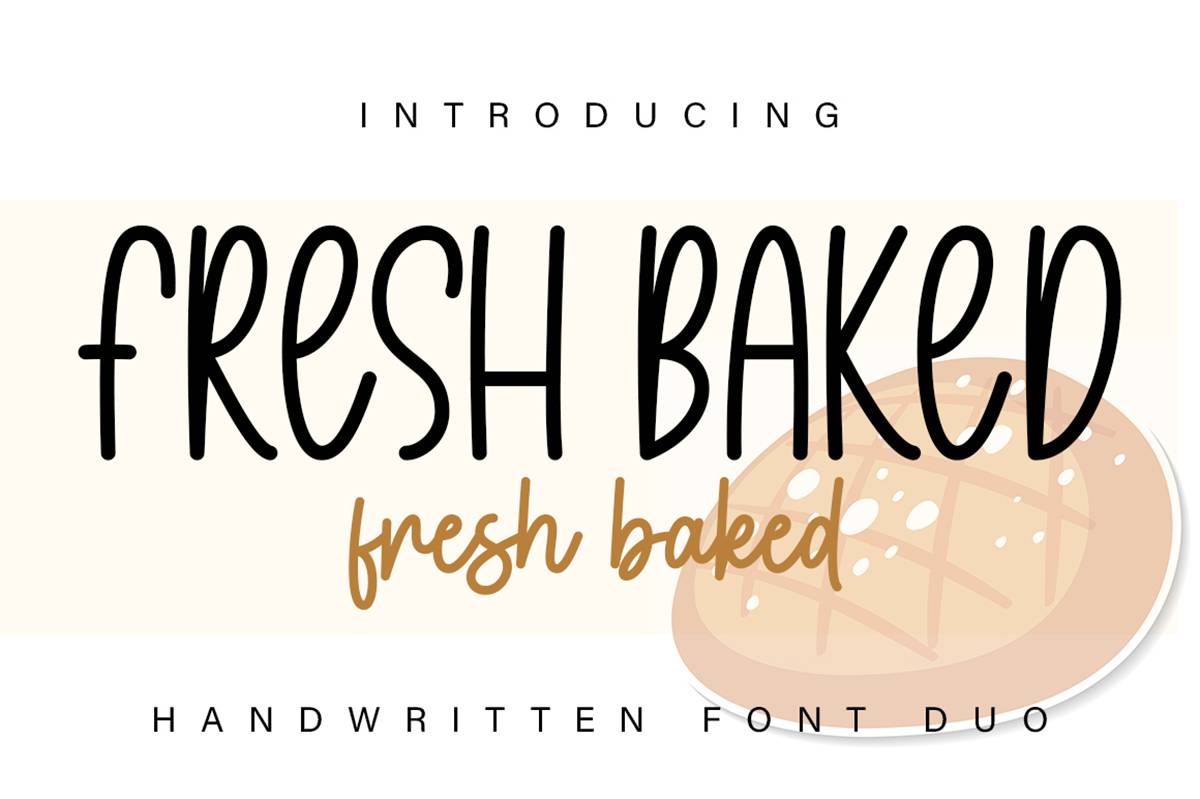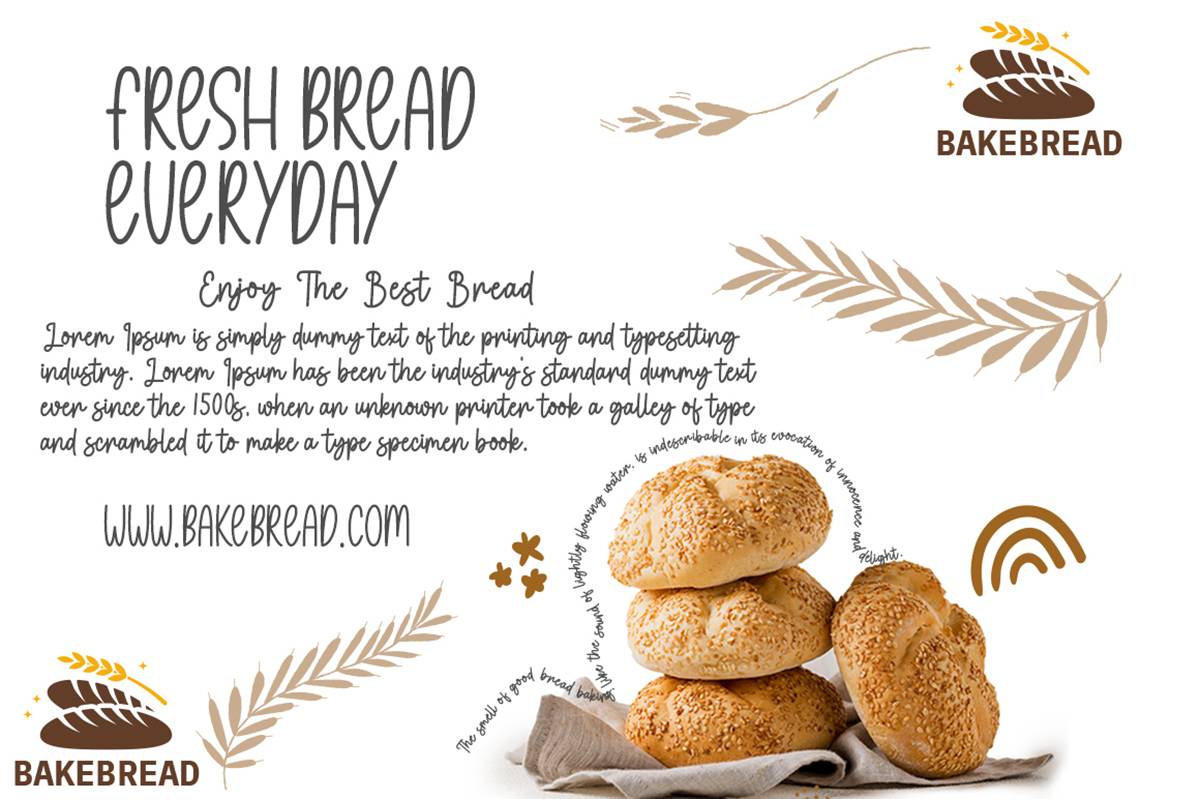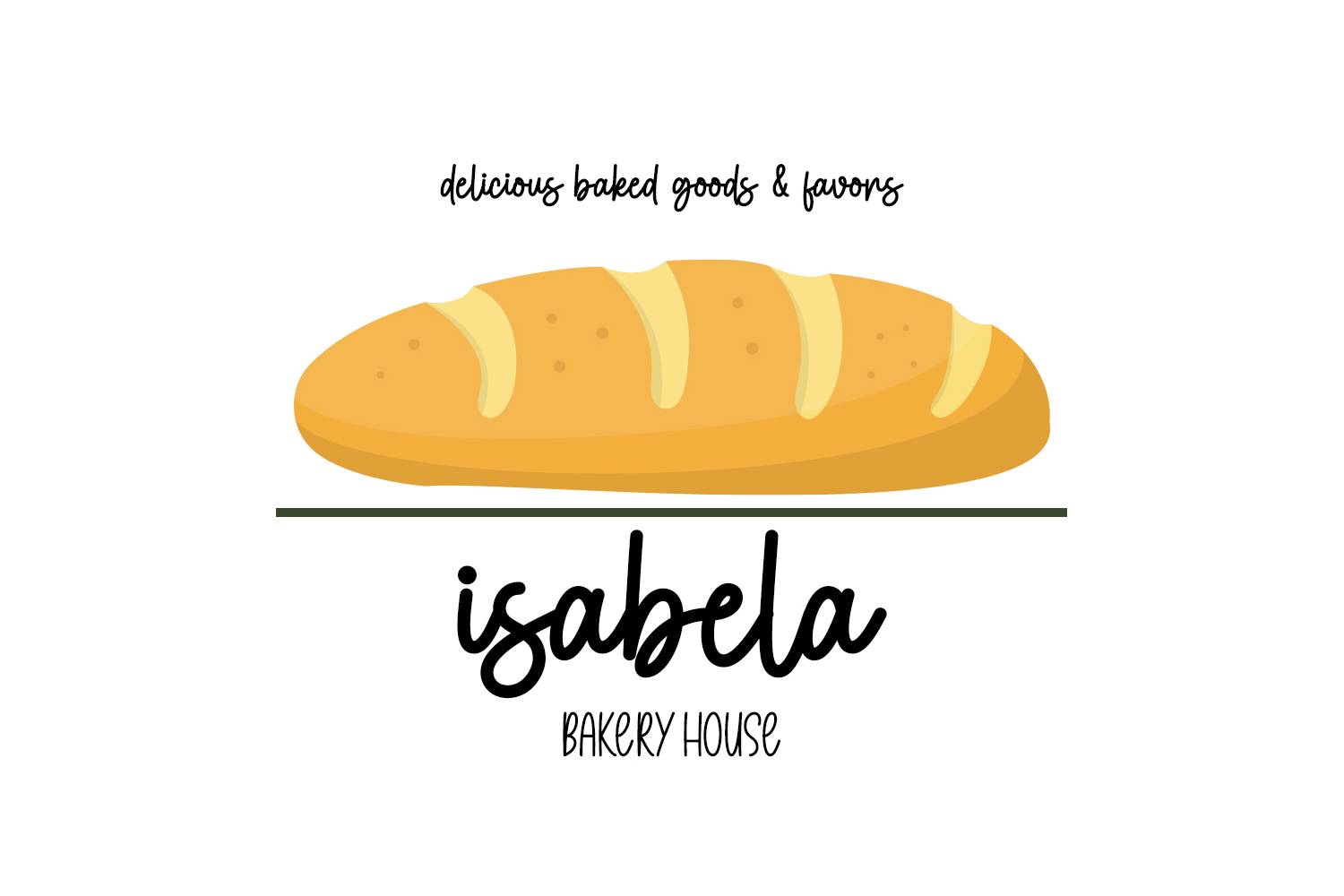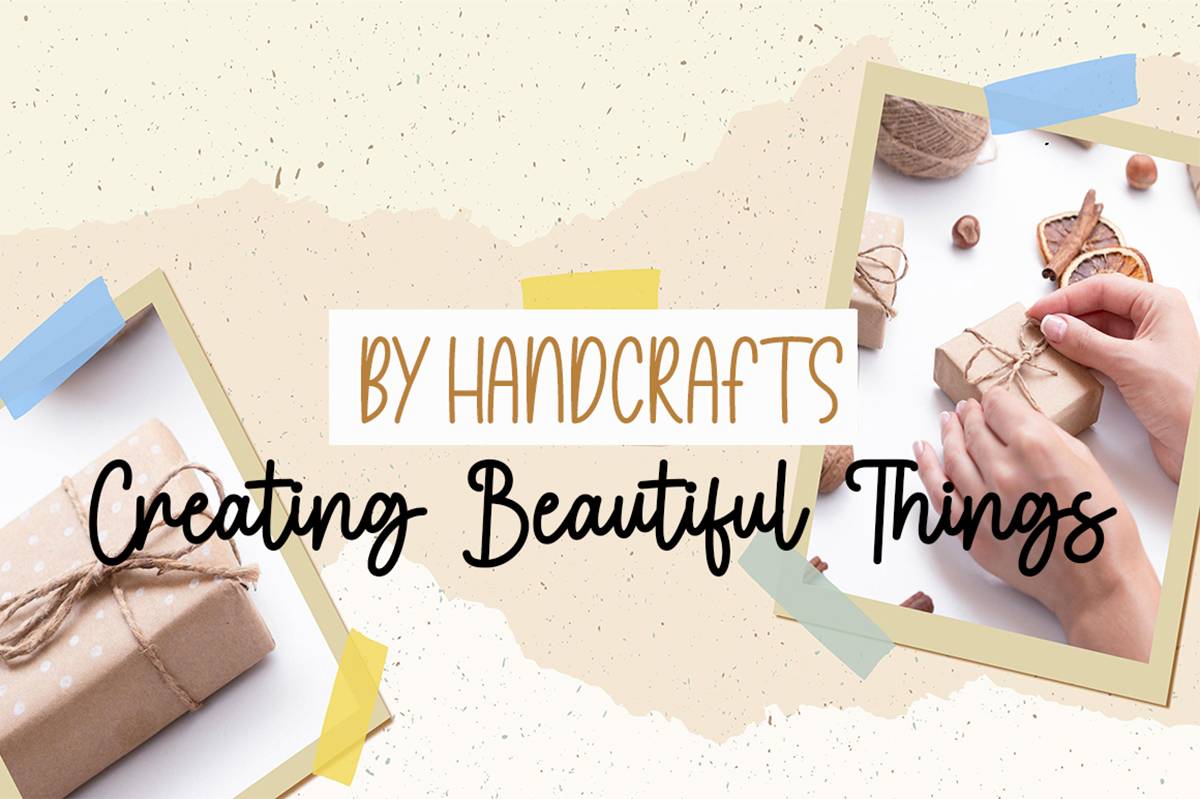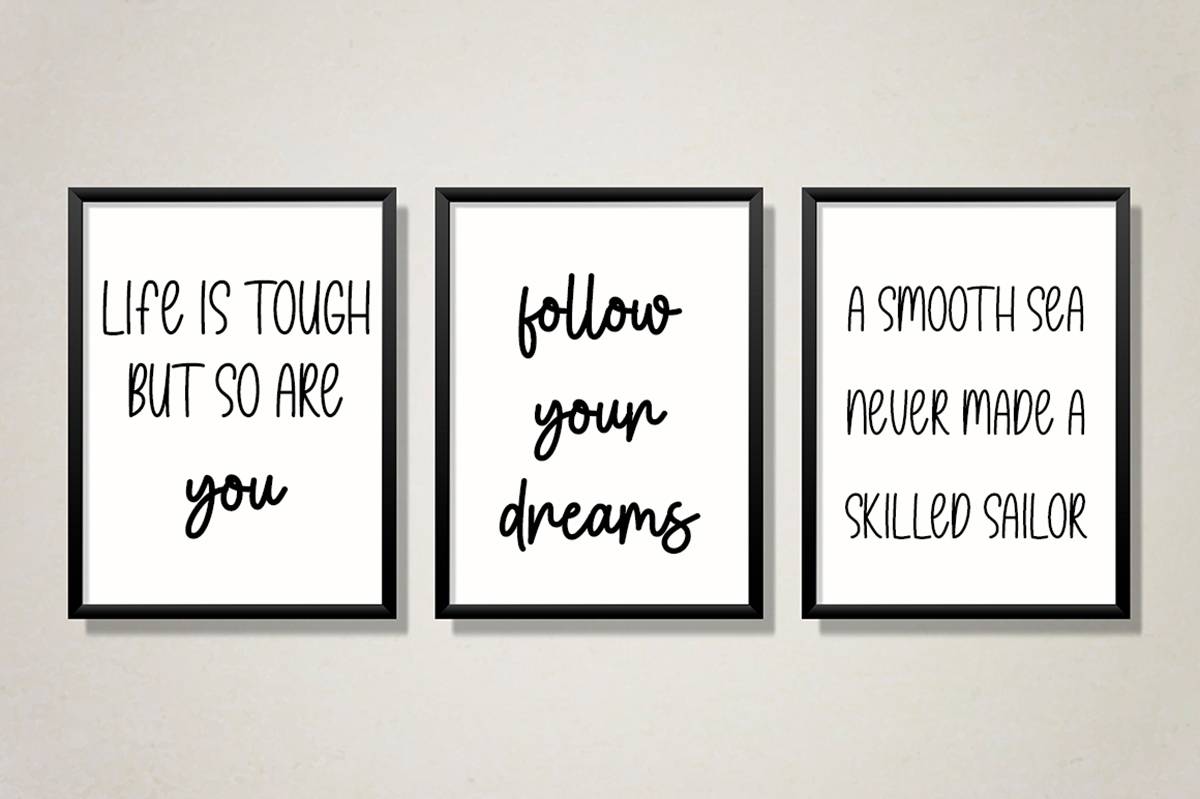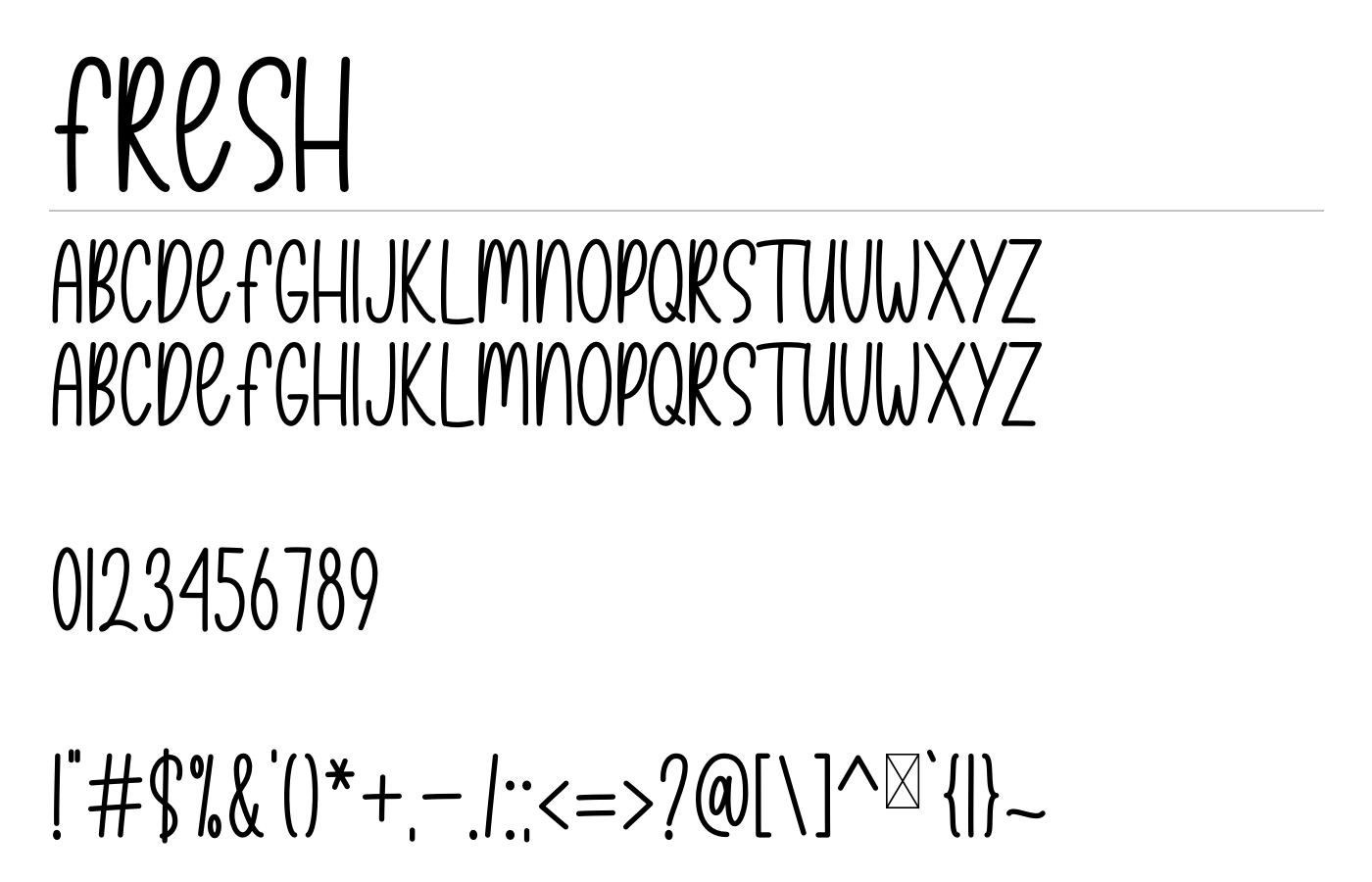
Fresh Baked is a playful, hand-drawn sans serif font characterized by its tall, narrow letterforms and casual, slightly irregular strokes that give it an inviting, friendly feel. Its thin weight and airy spacing make it ideal for lighthearted, creative projects such as children’s books, informal branding, or fun packaging. This font works well where a personal, approachable tone is desired, adding charm without sacrificing readability.
Fresh Baked Font